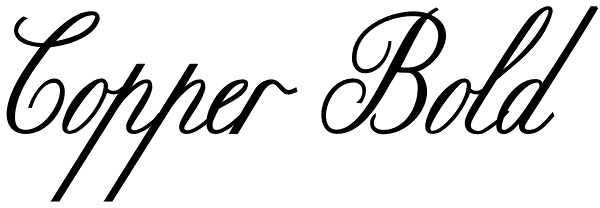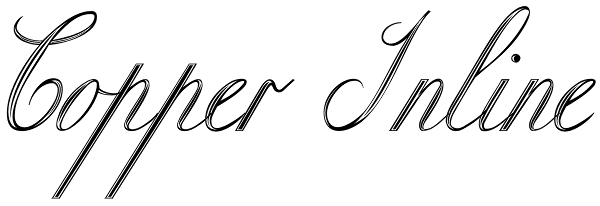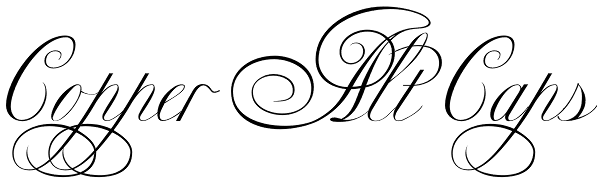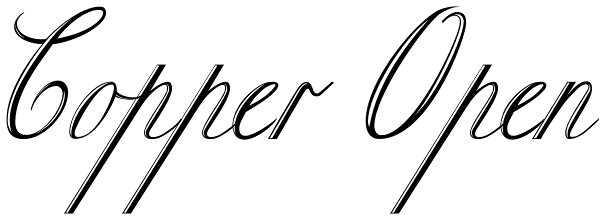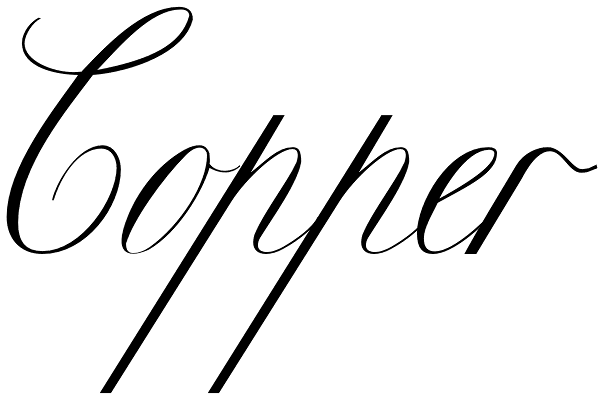
Copper
'The Copperplate Set' a series of type that can be used to produce letters and documents in the style used in the 19th century. The set is divided into two families Copper and Classic with an extra font called Decor. The Copper faces are based on...